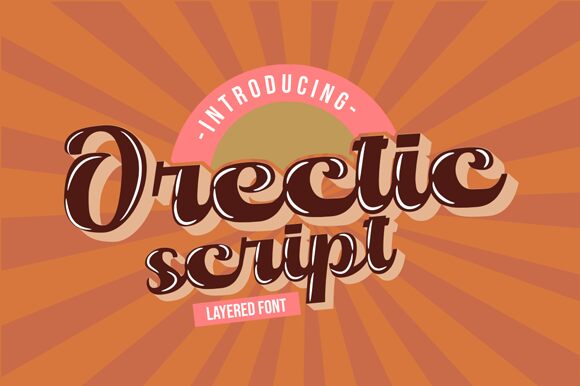
Orectic Highlights is a bold, brush-style font that exudes a striking visual presence. Crafted by designer Nur Solikh, this typeface stands out with its dynamic, expressive strokes and a touch of organic flair. The font's distinctive character lends itself well to a variety of design applications, from eye-catching headlines and impactful branding to artful typographic compositions.
Its versatility allows it to seamlessly blend into both contemporary and vintage-inspired aesthetics, making it a valuable asset for designers seeking to create memorable, attention-grabbing visuals.